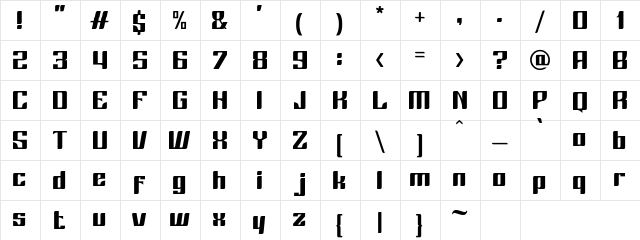
Nexhope Regular
Design Context for Nexhope Typeface
Nexhope is a composed and adaptable typeface that performs quietly and consistently across a wide range of design contexts.